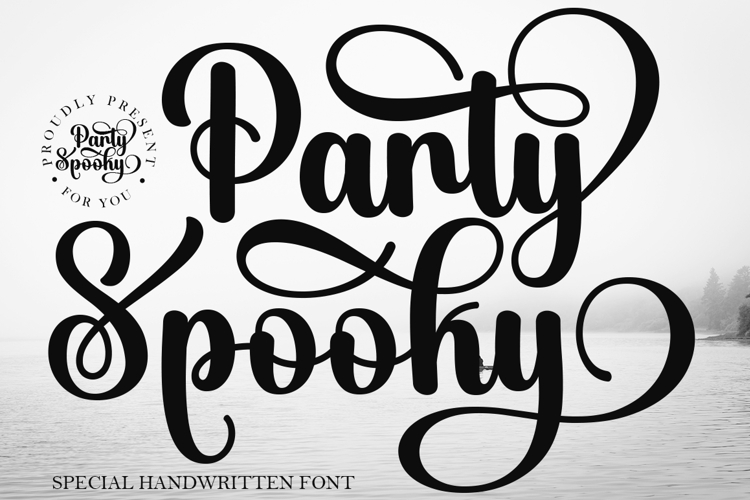
Immerse yourself in the captivating allure of Party Spooky, a font carefully crafted with a wisp of grace and warmth. It radiates a feminine charm, intertwining subtly elegant strokes that possess the potential to morph any design pursuit into a piece of art. Tailored with branding in mind, its uses range from striking titles and charming wedding themes to bewitching invites, distinctive signage, exclusive logos, and refined labels. Let the bewitching elegance of Party Spooky be the enchanting twist your creative endeavors need.